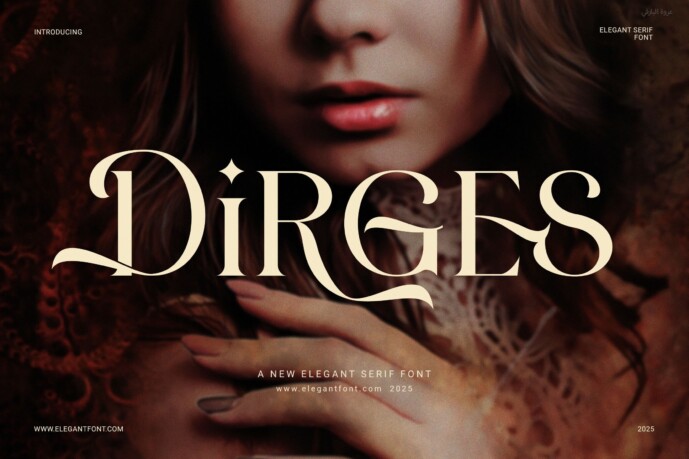
Dirges Font
Dirges is a stylish and modern serif typeface designed to give your work a clean, upscale feel. With graceful curves and a proportional shape, it brings both beauty and balance to any design. Whether you’re working on a personal brand or a client project, Dirges delivers results that feel both professional and refined.
Thanks to its functional ligatures, the letters flow naturally and look visually appealing in every layout. This added detail helps elevate designs while maintaining clarity. As a result, Dirges stands out on both digital and print platforms.